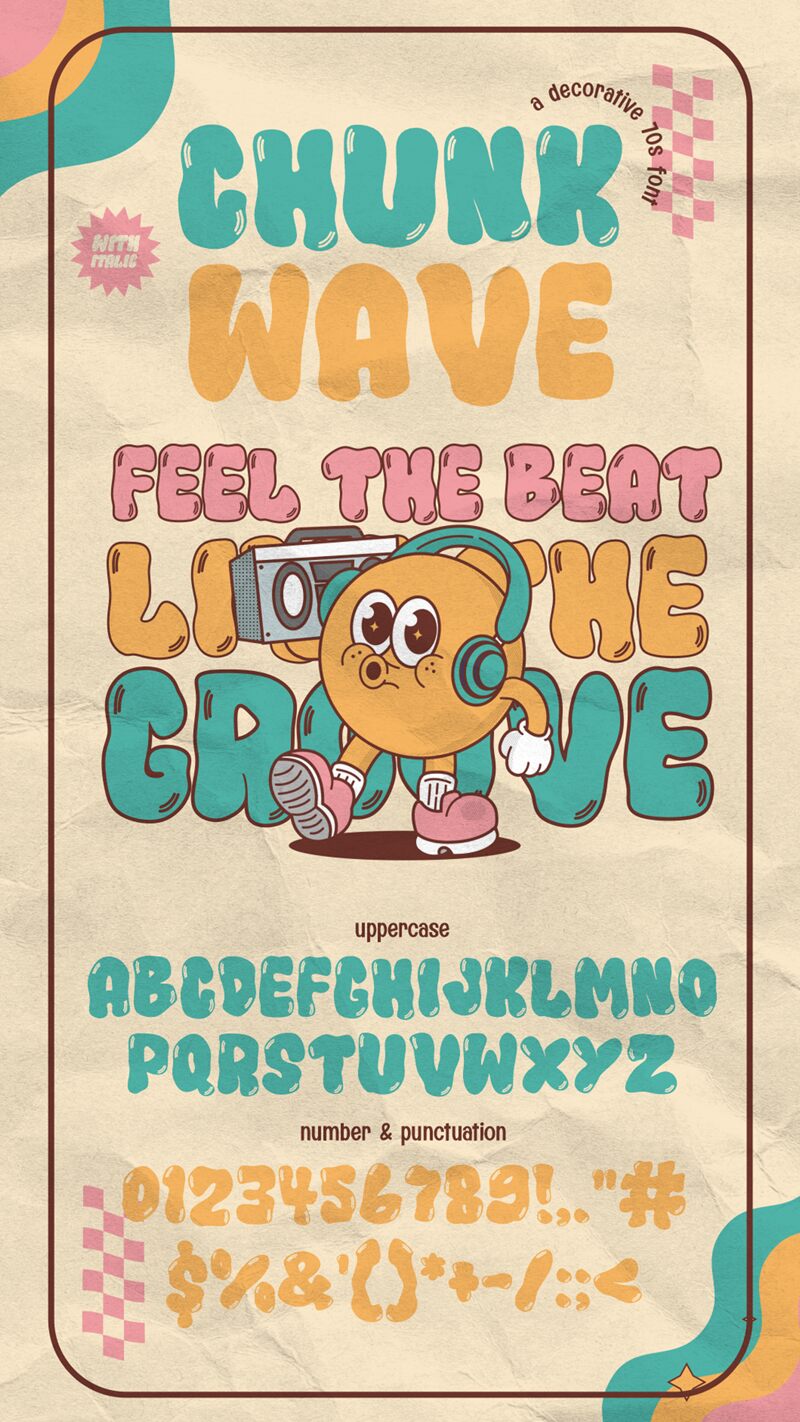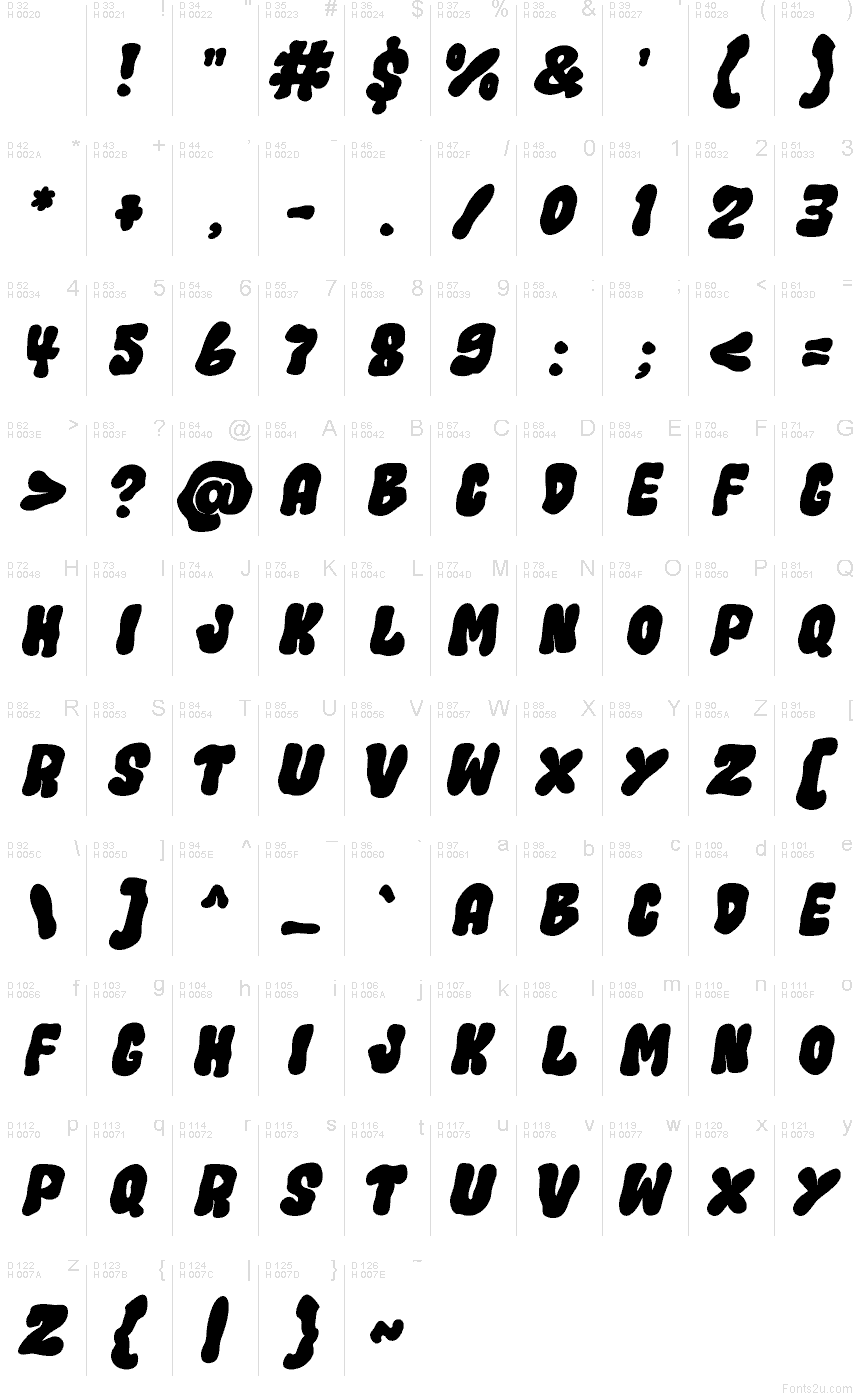
Chunk Wave Italic font by Rizal Yusepudin Salman & Muhammad Panji Ramdhani of Cikareotype x Figuree is a free groovy font with a thick, juicy slant and soft, inflated curves that feel like letters cut from licorice. The bold weight and tight rhythm keep it loud and readable, while the italic swing adds motion-like a surf poster caught mid-breeze. It’s playful without getting messy, so your message still lands fast.
Using Chunk Wave Italic shines on music flyers, skateboard or streetwear branding, summer event posters, snack packaging, café menus, sticker sheets, YouTube thumbnails, and punchy social headlines. This free font also works nicely for short logotypes when you want warmth and swagger in one hit. Pair it with a clean geometric sans (or a plain grotesk) for body text, and give it breathing room-bigger sizes look especially tasty.